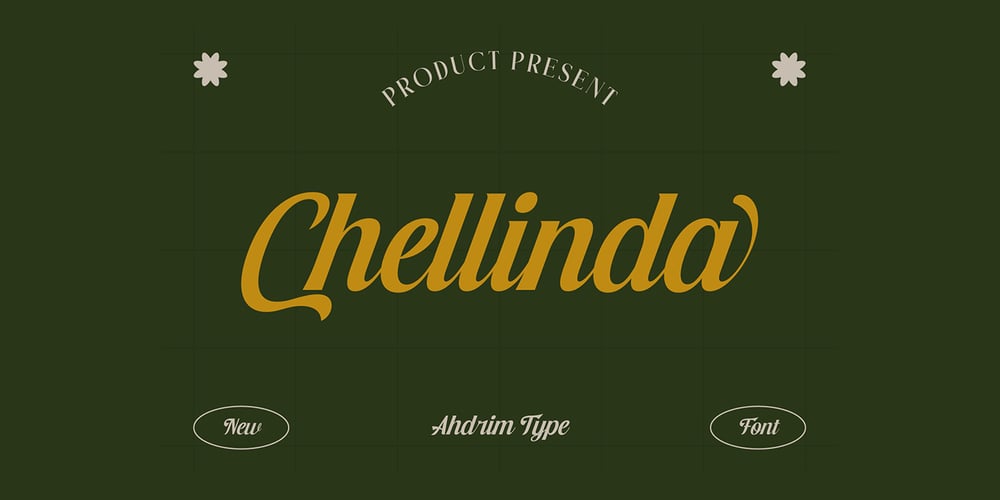
Chellinda
Chellinda font
Chellinda Font Family was designed by Mirdhatillah and published by Portograph Studio. Chellinda contains 1 styles and family package options. Chellinda Bold Script is a stylish and refined Script font. It looks beautiful on a variety of designs requiring a personalized style, such as wedding invitations, thank you cards, weddings, greeting cards, logos and so much more. This font is PUA encoded which means you can access all of the glyphs and swashes with ease!